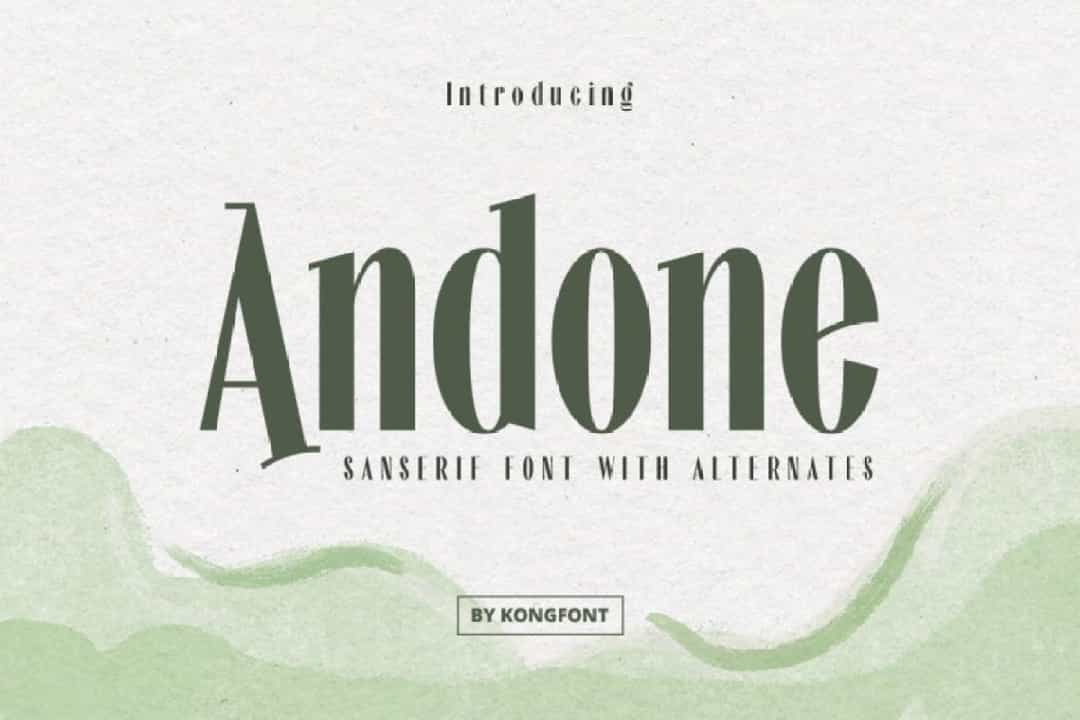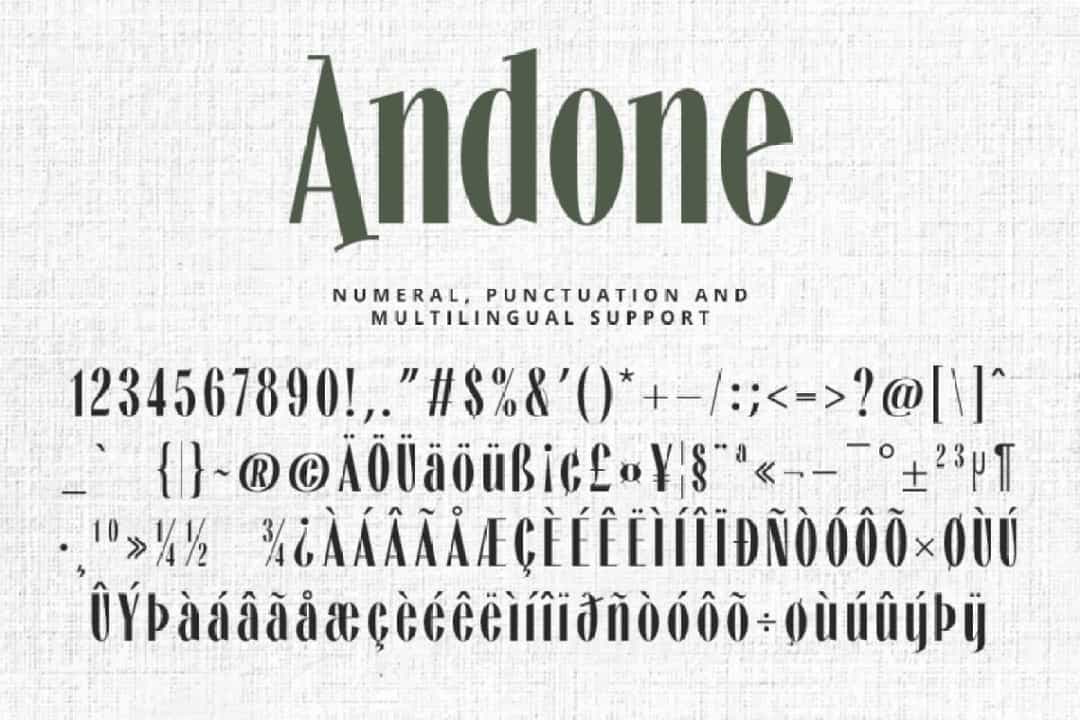
Andoneis an elegant yet simple sans-serif style that adds contemporary appeal to designs such as posters, branding and quotes, web sites, newspapers blogs magazines book covers and more!